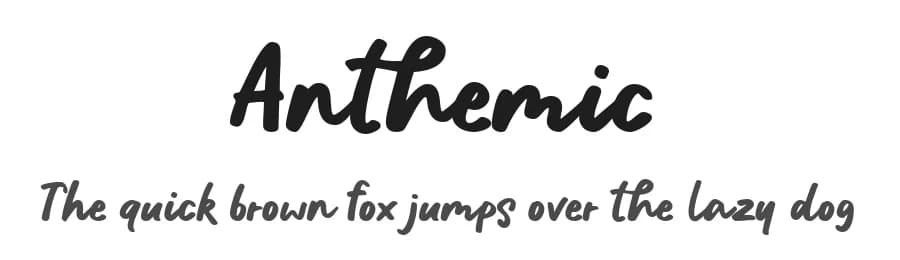
About Anthemic Font
Anthemic Specifications
| Font Family | Anthemic Demo |
| Full Name | Anthemic Demo Regular |
| Glyph Count | 188 glyphs |
| PostScript Name | AnthemicDemo-Regular |
| Designer | Aldy Sidik |
Anthemic supports 213 languages.
Anthemic Font is a script font that shines as a display or heading face. Pair it with a clean sans-serif or serif font for body text β the contrast creates a clear hierarchy while the two styles stay balanced and easy to read.
Anthemic Font